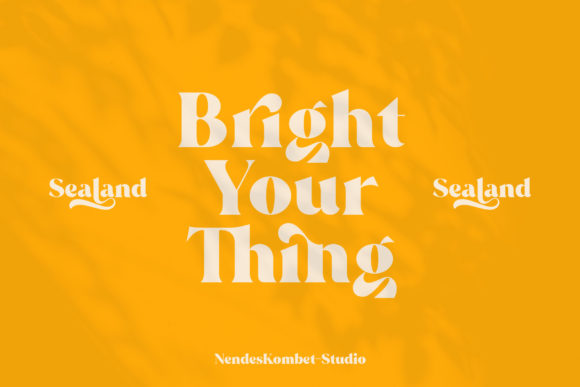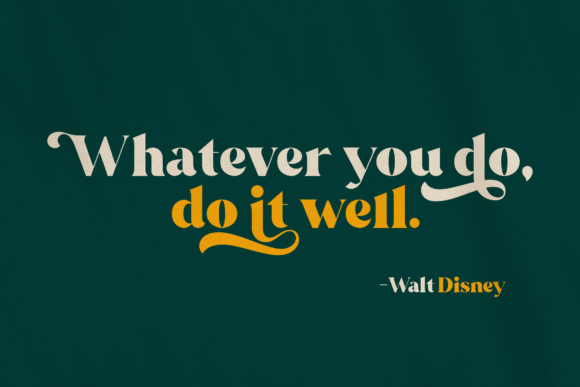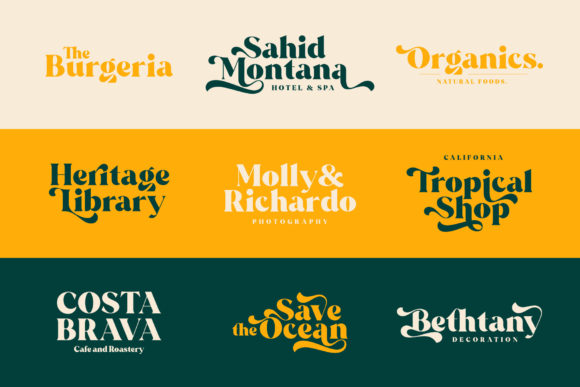
Introduction to Sealand Font
Have you ever stared at a blank canvas, waiting for inspiration to strike, only to have a single font spark a whole new creative direction? For designers, that ‘aha’ moment can be a game-changer. For me, it was when I stumbled upon the Sealand Font – a bold and classy serif font that instantly added depth and character to my design.
As a valuable design resource, the Sealand Font is perfect for those seeking a high-quality font that exudes confidence and dynamism. Its nostalgic feel makes it an ideal choice for creative projects that require a touch of classic elegance. Whether you’re working on a branding project or crafting a beautiful website, the Sealand Font is sure to elevate your design to the next level.
Key Features of Sealand Font
- High-quality font design resource ideal for creative projects
- Unique, hand-drawn design with a transparent background for seamless integration
Honest Review: Sealand Font
As a designer, I’m always on the lookout for high-quality design resources that can elevate my creative projects. Recently, I stumbled upon the Sealand Font, and I’m excited to share my honest review with you.
What works well about the Sealand Font is its sleek and modern design. The font features a transparent background, making it perfect for overlaying on images or using as a standalone text element. The high-quality design makes it suitable for a wide range of creative projects, from branding to advertising.
Here are some key features that I appreciate:
- Transparent background for easy overlaying
- Modern and sleek aesthetic
However, I did encounter some limitations with the Sealand Font. The font family is relatively small, which may limit its versatility in certain design scenarios. Additionally, the font may not be suitable for all types of text, such as body copy or large blocks of text.
Overall, I’m impressed with the Sealand Font, and I would recommend it to designers who are looking for a high-quality, modern font for their creative projects. ⚠️ Just be aware of its limitations, and use it accordingly.
Sealand Font
Design Resource
The Sealand Font is a high-quality, free download design resource ideal for creative projects that require a unique and eye-catching visual style. This font features a transparent background, making it perfect for overlaying on images or using as a standalone design element.
The Sealand Font is ideal for use in a variety of creative projects, including:
- Brochure design
- Poster design
- Infographic design
Tips for Getting the Most Out of Sealand Font
To get the most out of the Sealand Font, try the following:
- Experiment with different font sizes and styles
- Layer the font over images for a unique design effect
- Use the font in combination with other design elements for added visual interest